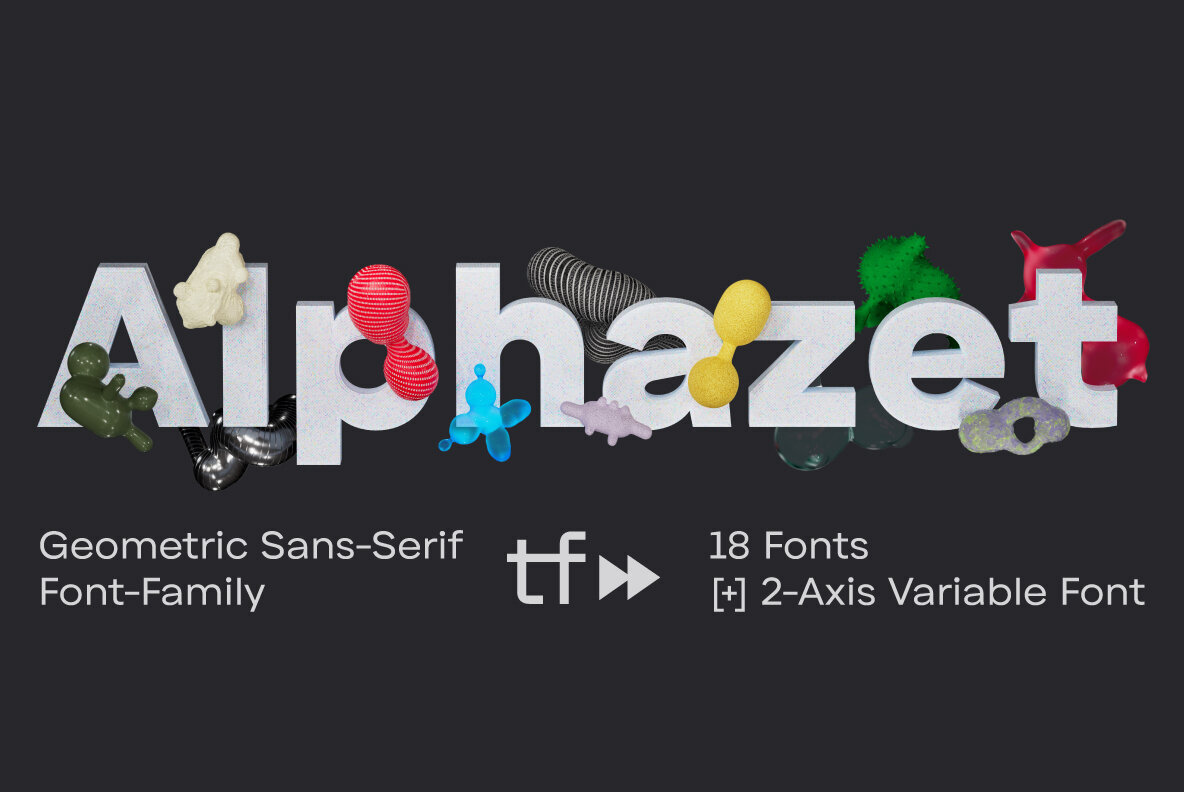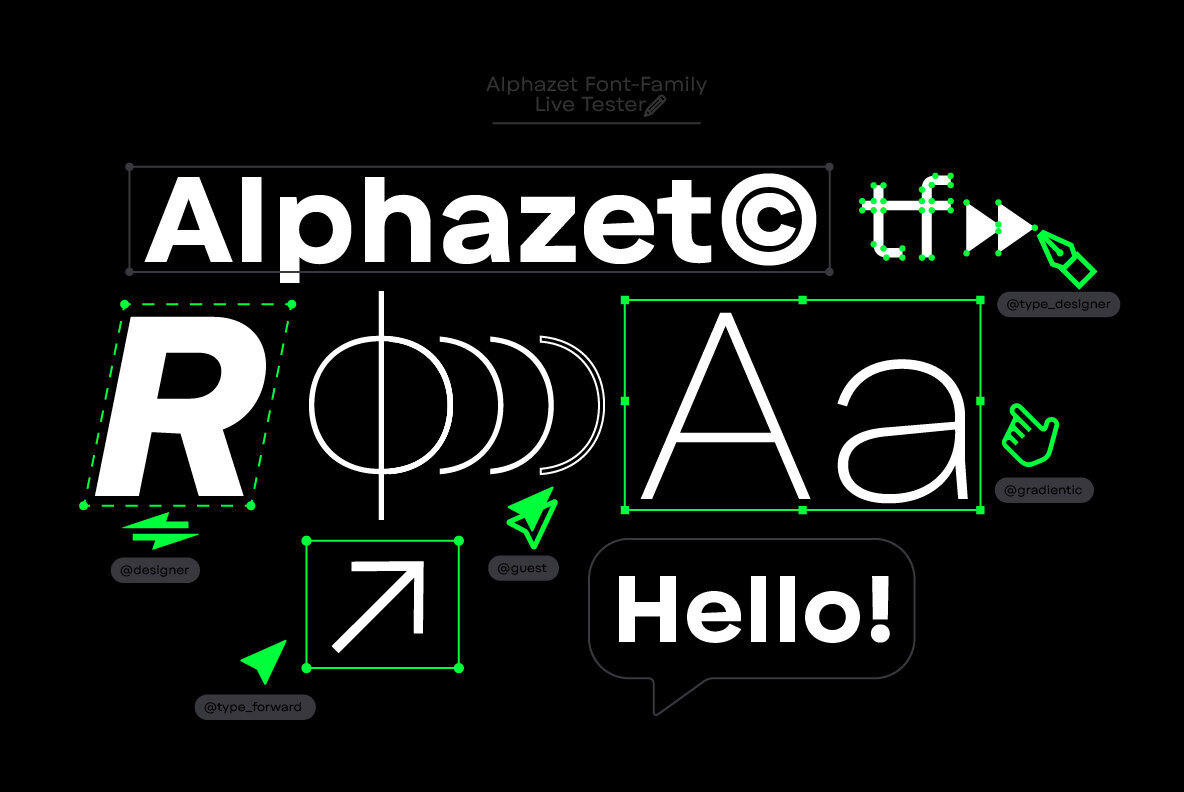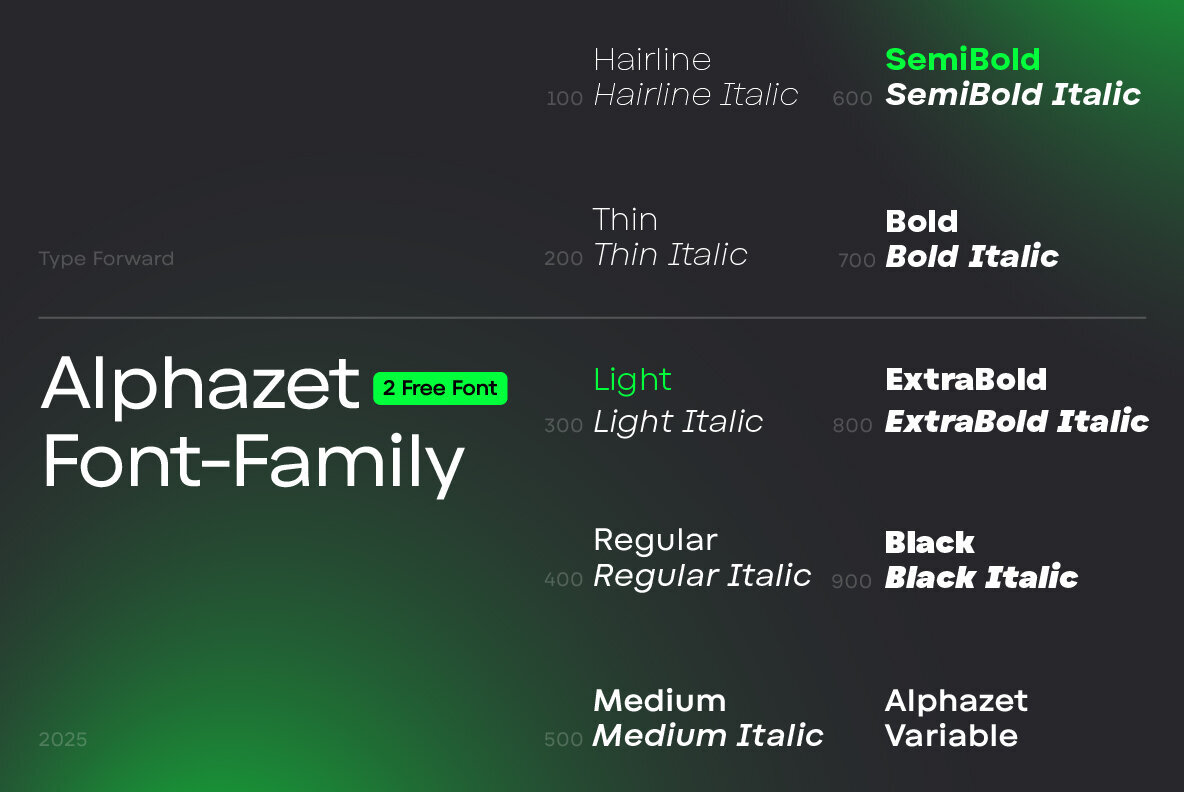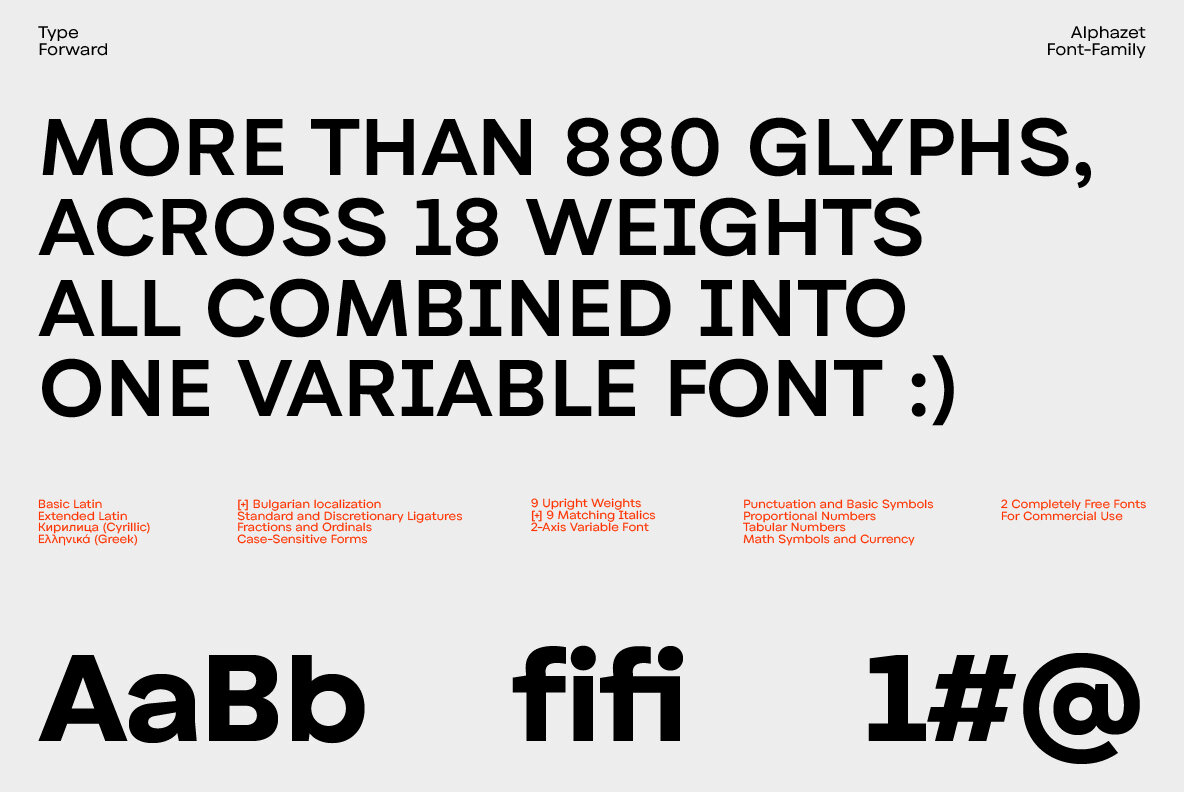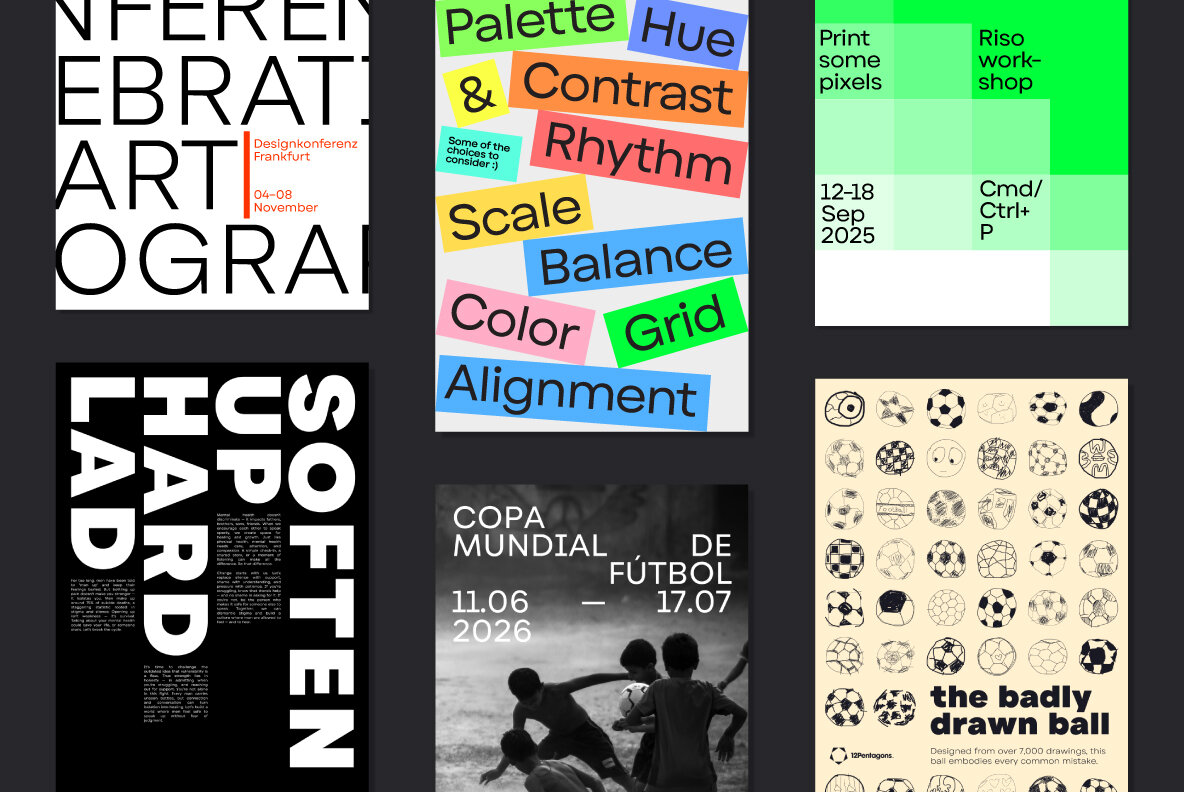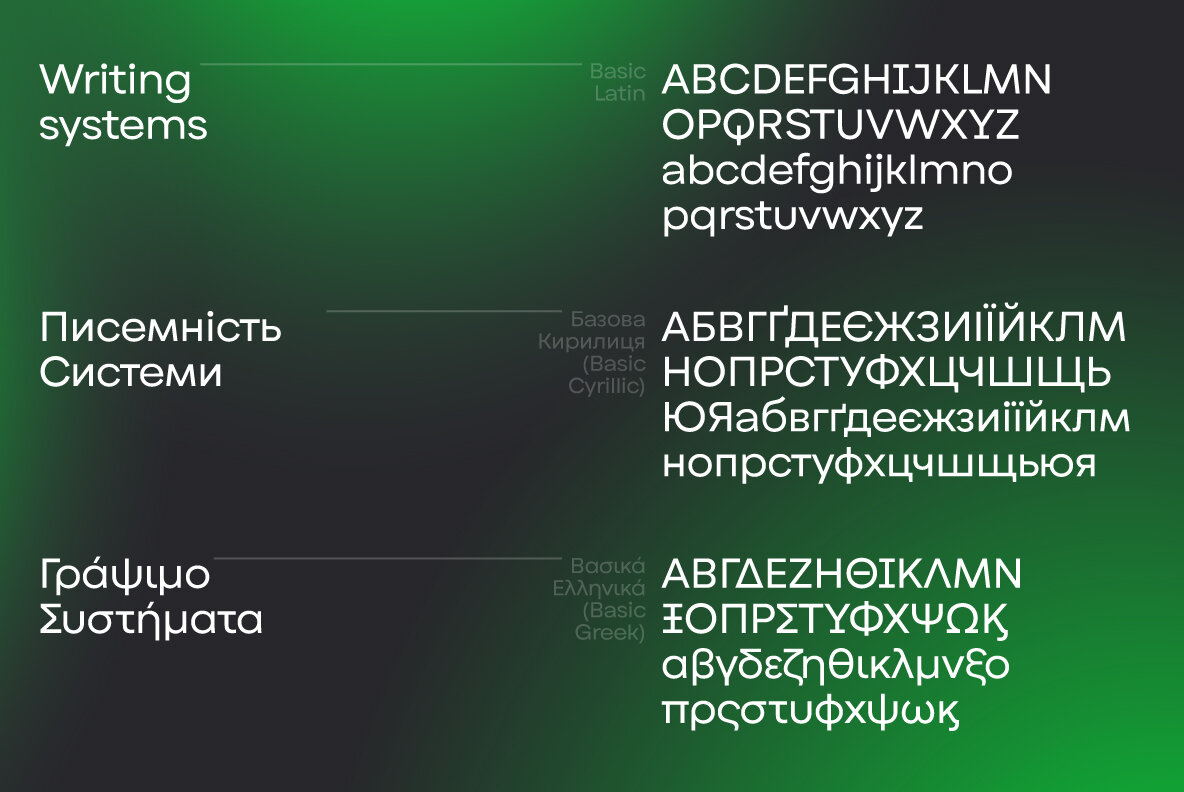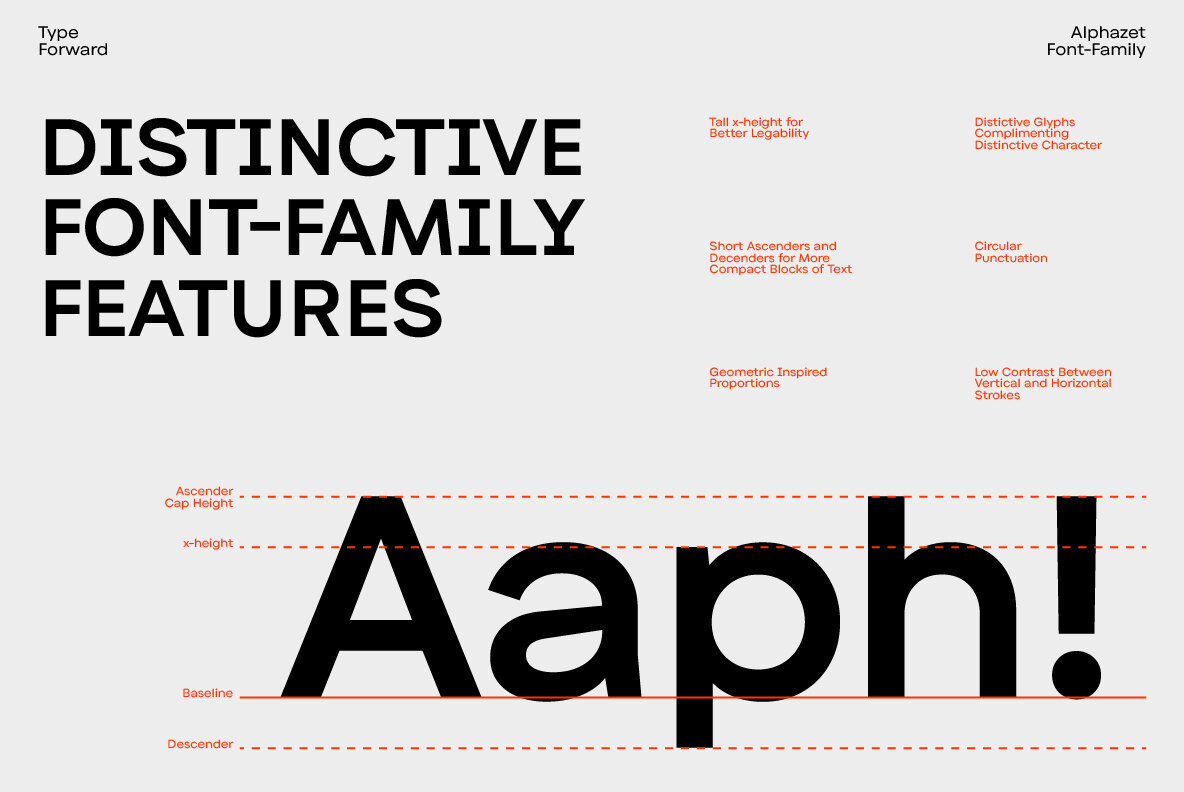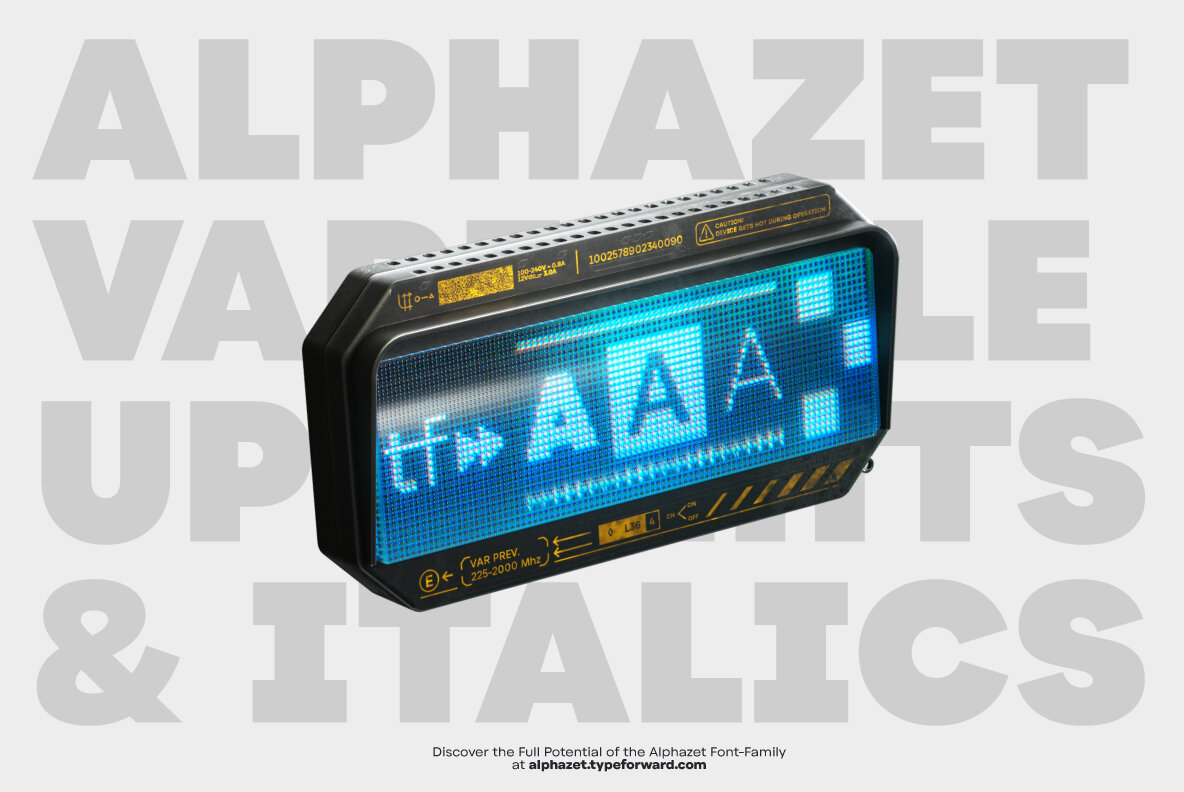
Alphazet Font
Alphazet is a geometric sans-serif typeface characterized by minimal stroke contrast and a high x-height. This modern font, crafted in collaboration with Luboslav Boyanov, exudes a confident and monolithic presence. Its slightly wider proportions enable both prominent headlines and extended text applications with equal effectiveness. Embodying pure geometric shapes, Alphazet emphasizes functionality. With its tall x-height and short ascenders and descenders, it ensures space-efficient design. The typeface maintains optical consistency through balanced glyphs, achieving a harmonious texture across lines of text. Features: Alphazet is designed for diverse applications. Its tall x-height and optimal spacing make it ideal for body text, while its robust and balanced visual identity suits headlines and posters marvelously.Alphazet: Geometric Sans-Serif with Modern Appeal